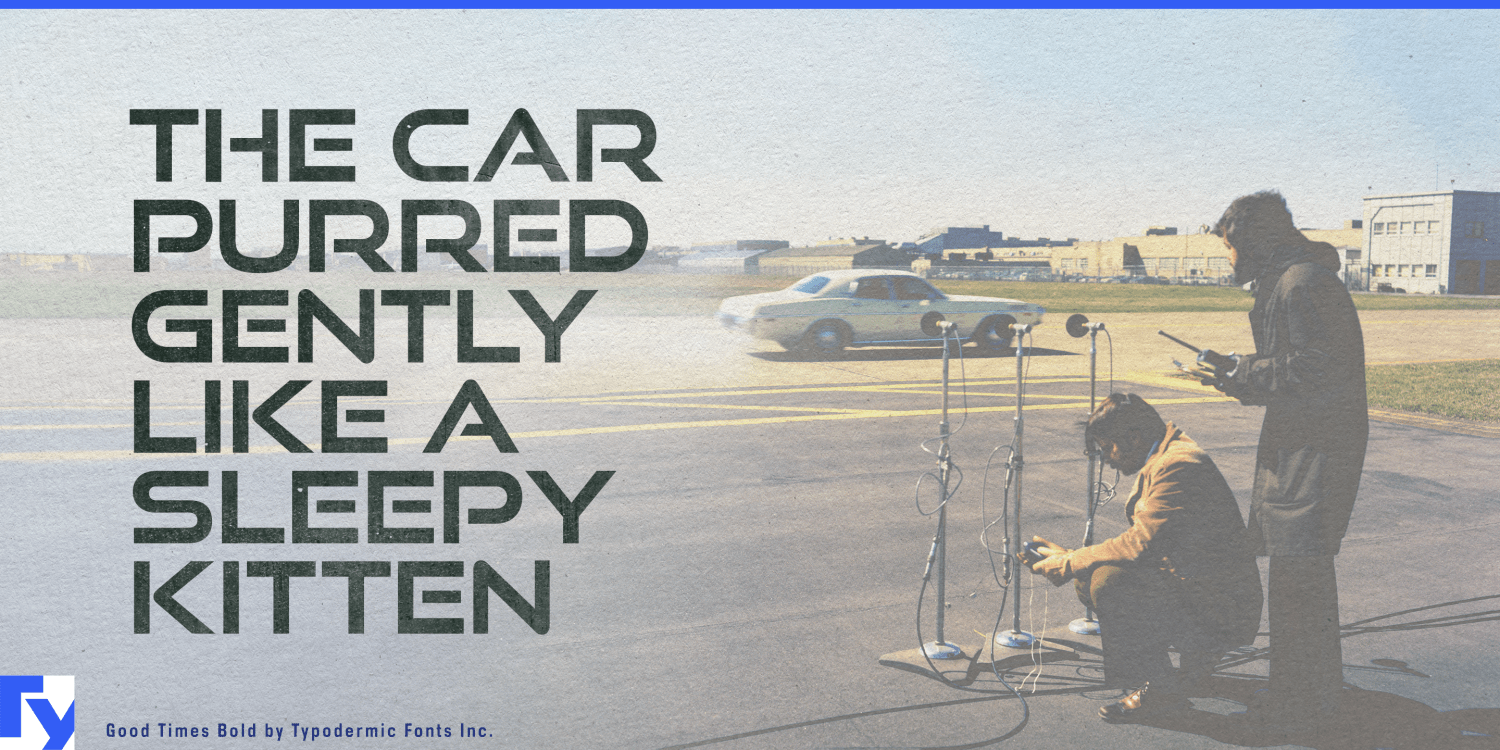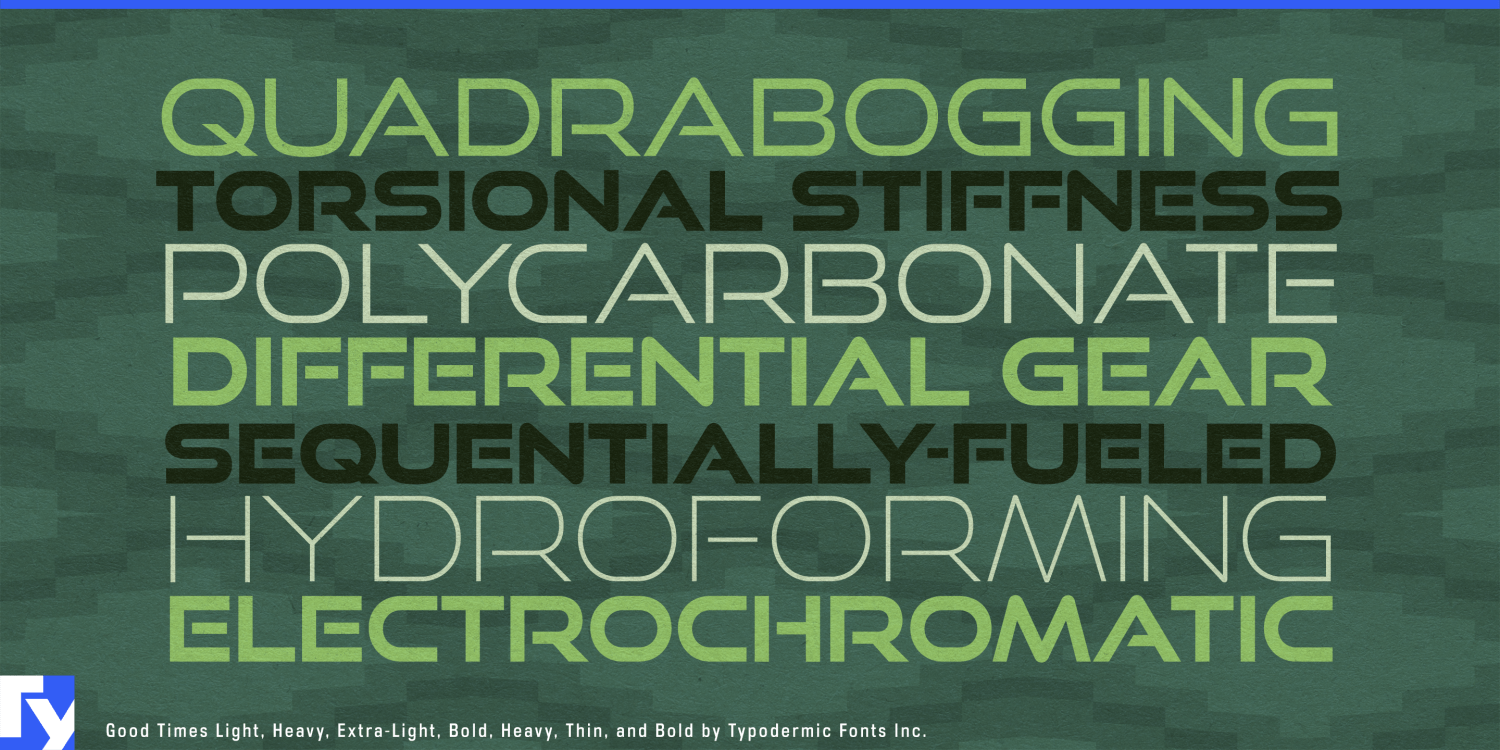
About Good Times
Gear up for a typographic revolution with Good Times, a font that catapults the spirit of ’90s techno-futurism into the contemporary design landscape. Inspired by the high-tech lettering that adorned Pontiac cars from 1989 to 1994, Good Times isn’t…